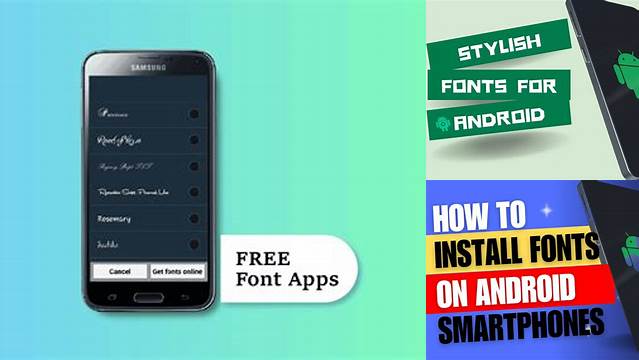
Best Fonts For Android: Enhance Your Phone's Look
Choosing the right fonts for android can dramatically transform the look and feel of your device. Whether you're aiming for a sleek, modern aesthetic or a playful, whimsical vibe, the perfect font can make all the difference. Let's dive into the world of Android fonts and explore how you can customize your phone to reflect your personal style. So, buckle up, font enthusiasts, because we're about to embark on a typographical journey!
1. Understanding Font Options on Android
6. Best Font Styles for Android in 2024
Staying current with the latest trends can greatly influence the choice of fonts for android. In 2024, minimalist sans-serif fonts are still in vogue, offering a clean and modern look. Geometric fonts are also gaining popularity, providing a structured and sophisticated feel. For a more playful vibe, consider handwritten or script fonts, but use them sparingly to avoid readability issues. Ultimately, the best font style depends on your personal preferences and the overall aesthetic you're aiming for. Exploring different styles and experimenting with combinations can help you discover the perfect fonts for android to complement your device's design.
7. Sans-Serif Fonts for Android
Sans-serif fonts for android are characterized by their clean, simple lines and lack of decorative serifs (the small strokes at the end of letterforms). These fonts are highly readable and versatile, making them a popular choice for Android devices. Some popular sans-serif fonts include Roboto, Open Sans, and Lato. Roboto is the default system font for Android, known for its modern and approachable design. Open Sans is another excellent option, offering a friendly and legible typeface. Lato is a well-balanced sans-serif font that works well for both headings and body text. Sans-serif fonts for android provide a crisp, modern look, perfect for various applications from reading articles to navigating menus.
8. Serif Fonts for Android
Serif fonts for android are distinguished by the presence of serifs, which are small decorative strokes at the end of letterforms. These fonts often convey a sense of tradition, elegance, and formality. While not as commonly used as sans-serif fonts on Android devices, serif fonts can add a touch of sophistication to certain applications. Some popular serif fonts include Times New Roman, Georgia, and Playfair Display. Times New Roman is a classic serif font that is widely recognized and highly legible. Georgia is another excellent option, designed specifically for screen readability. Playfair Display is a more decorative serif font, suitable for headings and titles. Serif fonts for android can enhance the visual appeal of your device, especially in apps that require a more formal or traditional aesthetic.
9. Monospace Fonts for Android
Monospace fonts for android are characterized by each character occupying the same amount of horizontal space. This uniformity makes them ideal for coding, text editing, and other applications where precise alignment is important. Monospace fonts often evoke a retro or technical feel. Some popular monospace fonts include Courier New, Consolas, and Source Code Pro. Courier New is a classic monospace font that is widely used in typewriters and text editors. Consolas is a modern monospace font designed for readability on screen. Source Code Pro is another excellent option, specifically designed for coding environments. Monospace fonts for android can be a great choice for developers, writers, and anyone who appreciates a functional and distinct typeface.
10. Script Fonts for Android
Script fonts for android mimic the appearance of handwriting, adding a personal and elegant touch to your device. These fonts are often used for headings, titles, and decorative elements. However, it's important to use script fonts sparingly, as they can be difficult to read in large blocks of text. Some popular script fonts include Brush Script MT, Pacifico, and Lobster. Brush Script MT is a classic script font that is widely recognized and often used for invitations and announcements. Pacifico is a modern script font with a friendly and casual feel. Lobster is a bold and decorative script font that is perfect for making a statement. Script fonts for android can add a touch of personality and charm to your device, but readability should always be a primary consideration.
11. Geometric Fonts for Android
Geometric fonts for android are based on precise geometric shapes, resulting in a structured and modern appearance. These fonts often convey a sense of order, efficiency, and sophistication. Geometric fonts are versatile and work well for both headings and body text. Some popular geometric fonts include Futura, Avant Garde, and Montserrat. Futura is a classic geometric font that is widely used in advertising and branding. Avant Garde is another excellent option, known for its clean lines and minimalist design. Montserrat is a modern geometric font that is highly legible and versatile. Geometric fonts for android provide a sleek and contemporary look, perfect for creating a professional and polished aesthetic.
12. Decorative Fonts for Android
Decorative fonts for android are designed to be eye-catching and unique, adding a distinct personality to your device. These fonts often feature elaborate details, unusual shapes, and artistic flourishes. Decorative fonts are best used sparingly, as they can be overwhelming in large blocks of text. They are ideal for headings, titles, and other elements where you want to make a statement. Some popular decorative fonts include Impact, Bauhaus 93, and Jokerman. Impact is a bold and attention-grabbing font that is often used in headlines and posters. Bauhaus 93 is a geometric decorative font with a retro feel. Jokerman is a whimsical and playful font that is perfect for creating a fun and lighthearted atmosphere. Decorative fonts for android can add a touch of creativity and flair to your device, but balance is key.
13. Font Size Adjustments on Android
Adjusting the font size on your Android device is crucial for readability and comfort. Most Android devices allow you to change the system-wide font size in the settings menu. This feature is particularly useful for users with visual impairments or those who simply prefer larger or smaller text. To adjust the font size, navigate to Settings > Display > Font size (or similar). Here, you can choose from a range of font sizes, typically ranging from small to extra large. Experiment with different sizes to find the one that works best for your eyes. Additionally, some apps allow you to adjust the font size independently of the system settings. Properly adjusting the font size can significantly improve your overall user experience on fonts for android.
14. Font Weight and Style Options
Many fonts offer different weights and styles, such as bold, italic, and condensed. These variations can add emphasis, create visual hierarchy, and improve readability on fonts for android. Bold text is often used for headings and titles, while italic text is used for emphasis or to indicate quotations. Condensed fonts can be useful for fitting more text into a limited space. The availability of different weights and styles depends on the specific font. Some fonts may only offer a regular weight, while others may offer a wide range of options. When choosing fonts for android, consider the different weights and styles available and how they can enhance your device's overall design. Experiment with different combinations to find the perfect balance and visual appeal.
15. Improving Readability with Font Choice
Readability is a crucial factor to consider when choosing fonts for android. A font that looks stylish but is difficult to read can be frustrating and counterproductive. To improve readability, opt for fonts with clear and distinct letterforms, adequate spacing, and a suitable x-height (the height of lowercase letters). Avoid fonts with excessive ornamentation or overly condensed designs. Sans-serif fonts are generally considered more readable on screens than serif fonts, but there are exceptions. Test different fonts in various apps and reading environments to assess their readability. Pay attention to how the font looks in different lighting conditions and at different zoom levels. Choosing a readable font is essential for ensuring a comfortable and enjoyable user experience on fonts for android.
16. Font Pairing: Combining Fonts Effectively
Font pairing involves combining two or more fonts to create a harmonious and visually appealing design on fonts for android. A well-executed font pairing can add depth, contrast, and personality to your device. When pairing fonts, it's important to choose fonts that complement each other rather than clash. A common approach is to pair a sans-serif font with a serif font, or a bold font with a lighter font. Consider the overall aesthetic you're aiming for and choose fonts that reflect that style. Avoid pairing fonts that are too similar, as this can create a monotonous and uninteresting design. Experiment with different combinations and seek inspiration from professional designers. Mastering the art of font pairing can significantly enhance the visual appeal of fonts for android.
17. Downloading and Installing Custom Fonts
Downloading and installing custom fonts for android can be a rewarding way to personalize your device. There are several sources for finding custom fonts, including font foundries, online marketplaces, and free font websites. When downloading fonts, ensure that you are obtaining them from reputable sources to avoid malware or copyright infringement. Once you have downloaded a font file (typically in TTF or OTF format), you can install it using a font management app or by manually placing the font file in the appropriate system directory (requires root access). Follow the instructions provided by the font management app or the website where you downloaded the font. Be cautious when installing custom fonts, as incorrect installation can cause issues with your device. With the right approach, downloading and installing custom fonts for android can open up a world of possibilities.
18. Managing Installed Fonts on Android
Managing installed fonts for android is essential for keeping your device organized and efficient. As you install more fonts, it can become challenging to keep track of them and find the ones you need. Font management apps can help you organize your fonts, preview them, and easily switch between them. These apps often provide features like font categorization, search functionality, and the ability to create font collections. Regularly reviewing your installed fonts and removing any that you no longer use can help free up storage space and improve your device's performance. Additionally, it's important to keep your font management app updated to ensure compatibility and security. Effective font management is a key aspect of customizing fonts for android.
19. Font Permissions and Security Considerations
When installing fonts for android, it's crucial to be aware of font permissions and security considerations. Fonts, like any other type of software, can potentially contain malicious code. Always download fonts from reputable sources and avoid installing fonts from unknown or untrusted websites. Pay attention to the permissions requested by font management apps and ensure that they are not requesting unnecessary access to your device. Regularly scan your device for malware and keep your security software up to date. Be particularly cautious when installing fonts that require root access, as this can increase your device's vulnerability. Protecting your device from font-related security threats is essential for maintaining a safe and secure Android experience when dealing with fonts for android.
20. Troubleshooting Font Issues on Android
Encountering font issues on your Android device can be frustrating, but most problems can be resolved with some troubleshooting. Common font issues include fonts not displaying correctly, fonts causing system crashes, and fonts conflicting with other apps. If you encounter a font-related issue, try restarting your device first. This can often resolve temporary glitches. If the problem persists, try uninstalling the font that is causing the issue. You can also try clearing the cache and data of the font management app. If the issue is more serious, you may need to perform a factory reset on your device. Always back up your data before performing a factory reset. By following these troubleshooting steps, you can often resolve font issues and restore your device to normal functionality with your fonts for android.
21. Accessibility and Font Choices
Choosing accessible fonts for android is essential for users with visual impairments or other accessibility needs. Accessible fonts are designed to be easily readable and distinguishable, even for users with low vision. When selecting fonts, opt for those with clear and distinct letterforms, adequate spacing, and a suitable x-height. Avoid fonts with excessive ornamentation or overly condensed designs. Consider the font's contrast against the background color and ensure that it is sufficient for users with low vision. Additionally, many Android devices offer accessibility features like font scaling, which allows users to increase the font size system-wide. By choosing accessible fonts and utilizing accessibility features, you can create a more inclusive and user-friendly Android experience when it comes to fonts for android.
22. The Impact of Fonts on Branding
Fonts play a crucial role in branding and can significantly impact how your app or business is perceived. Choosing the right fonts for android can help you create a consistent and recognizable brand identity. Your font choices should reflect your brand's personality, values, and target audience. For example, a sophisticated brand might opt for a classic serif font, while a modern brand might choose a clean sans-serif font. Consistency is key when it comes to font usage. Use the same fonts across all your marketing materials, including your website, app, and social media profiles. A well-defined font palette can help you create a strong and memorable brand identity when dealing with fonts for android.
23. Font Licensing and Usage Rights
Before using a font in your project, it's essential to understand font licensing and usage rights. Most fonts are protected by copyright and require a license for commercial use. Font licenses specify how the font can be used, including whether it can be embedded in apps, used for web design, or included in printed materials. Some fonts are available under open-source licenses, which allow for free use and distribution. However, even with open-source fonts, it's important to check the specific terms of the license. Violating font licensing agreements can result in legal consequences. Therefore, always read the font license carefully and ensure that you are complying with the terms when working with fonts for android.
24. Creating Your Own Custom Font
For those who want a truly unique look, creating your own custom font is an exciting possibility. While it requires some technical skills and artistic talent, the result can be a font that perfectly reflects your personal style or brand identity. There are several software tools available for creating fonts, including FontLab Studio, Glyphs, and FontForge. These tools allow you to design each letterform, adjust spacing and kerning, and generate font files in various formats. Creating a custom font can be a time-consuming process, but it can also be incredibly rewarding. A custom font can help you stand out from the crowd and create a truly memorable visual identity when it comes to fonts for android.
25. Font Resources and Inspiration Websites
Finding inspiration and resources for fonts for android is easy with the abundance of websites dedicated to typography. Websites like Google Fonts, Adobe Fonts, and MyFonts offer vast libraries of fonts, both free and commercial. These websites also provide tools for previewing fonts, pairing fonts, and generating CSS code for web design. Additionally, websites like Typewolf and Fonts in Use showcase examples of fonts used in real-world designs, providing inspiration for your own projects. Following typography blogs and social media accounts can also help you stay up-to-date on the latest font trends and design techniques. With so many resources available, you'll never run out of ideas for your fonts for android.
26. Optimizing Fonts for Mobile Performance
Optimizing fonts for android for mobile performance is crucial for ensuring a smooth and responsive user experience. Large font files can slow down your app's loading time and consume excessive memory. To optimize fonts, use web font formats like WOFF and WOFF2, which are specifically designed for efficient delivery over the internet. Subset your fonts to include only the characters that you need, reducing the file size. Use font caching to store fonts locally on the device, avoiding the need to download them repeatedly. Additionally, avoid using too many different fonts, as this can increase the number of HTTP requests and slow down your app. By following these optimization techniques, you can ensure that your fonts enhance your app's performance rather than hinder it when using fonts for android.
27. Font Embedding Techniques for Apps
Font embedding involves including font files directly within your app, ensuring that the font is available even if the user doesn't have it installed on their device. This is particularly important for custom fonts or fonts that are not commonly available. There are several techniques for font embedding, including using the @font-face rule in CSS for web apps and including font files in the app's assets directory for native apps. When embedding fonts, it's important to consider font licensing and ensure that you have the right to distribute the font. Additionally, optimize the font files for mobile performance by using web font formats and subsetting the fonts. Proper font embedding can ensure that your app's typography always looks its best when using fonts for android.
28. Future Trends in Android Typography
The world of Android typography is constantly evolving, with new trends and technologies emerging all the time. Some future trends to watch out for include variable fonts, which allow for dynamic adjustments to font weight, width, and other parameters. Another trend is the increasing use of color fonts, which support multiple colors and gradients within a single font file. Additionally, augmented reality and virtual reality technologies are likely to influence typography, creating new opportunities for immersive and interactive font experiences. Staying up-to-date on these future trends can help you stay ahead of the curve and create innovative and engaging designs when using fonts for android.
29. Font Design for Different Screen Sizes
Designing fonts for different screen sizes is a crucial aspect of creating a responsive and user-friendly Android experience. Fonts that look great on a large tablet screen may be too small or difficult to read on a smaller phone screen. To address this issue, use scalable fonts that can adapt to different screen resolutions. Use relative units like em and rem to define font sizes, allowing them to scale proportionally with the screen size. Test your fonts on various devices to ensure that they are readable and visually appealing. Additionally, consider using different font sizes and weights for different screen sizes, optimizing the typography for each device when using fonts for android.
30. User Feedback and Font Choices
Gathering user feedback is an essential part of the font selection process. What looks good to you may not necessarily resonate with your target audience. Conduct user testing to gather feedback on different font choices and assess their readability, visual appeal, and overall effectiveness. Ask users to rate different fonts and provide comments on their preferences. Use A/B testing to compare the performance of different fonts and identify the ones that generate the best results. By incorporating user feedback into your font selection process, you can ensure that your font choices are aligned with your audience's needs and preferences, ultimately improving the user experience of fonts for android.